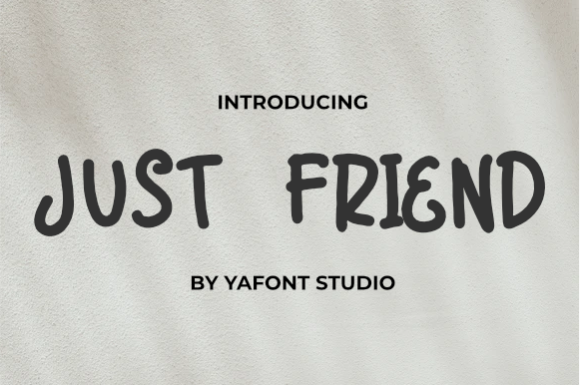
You need a font that captures the essence of your brand, a font that speaks to your audience and conveys your message in a way that is both eye-catching and memorable. With Just Friend, you can do just that. This playful and authentic font is perfect for any children's activity or school project.
Just Friend is a display font that embodies the spirit of fun and creativity. It is a simple and neat font that is easy to read and understand, making it perfect for any type of project. Whether you are creating a poster for a school play or designing a t-shirt for a children's birthday party, Just Friend is the perfect font to add a touch of whimsy and charm.
But Just Friend is more than just a pretty face. It is also a versatile font that can be used for a variety of purposes. Need to create a logo for your new business? Just Friend can help with that. How about a social media post that is sure to get noticed? Just Friend can help with that too. No matter what your project, Just Friend is the perfect font to add a touch of fun and creativity.
* It is a playful and authentic font that is perfect for any children's activity or school project.
* It is a simple and neat font that is easy to read and understand.
* It is a versatile font that can be used for a variety of purposes, from logos to social media posts.